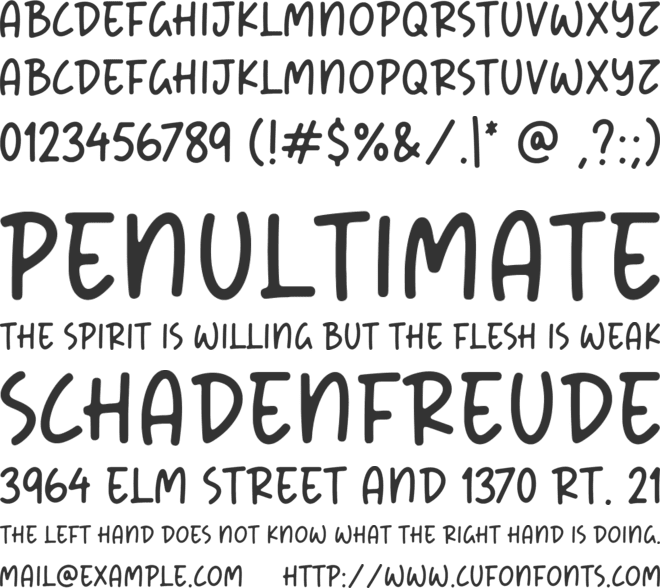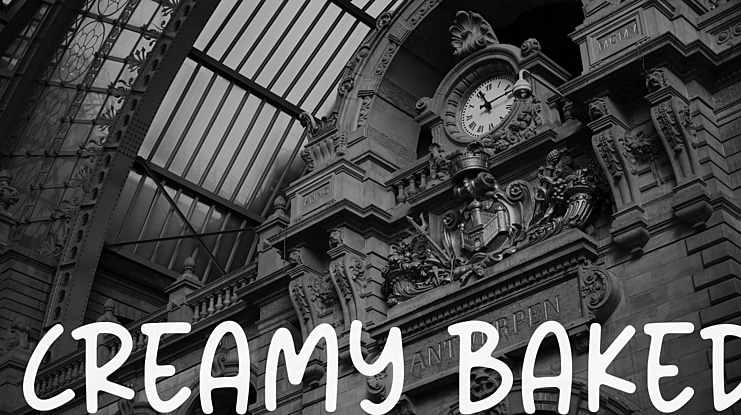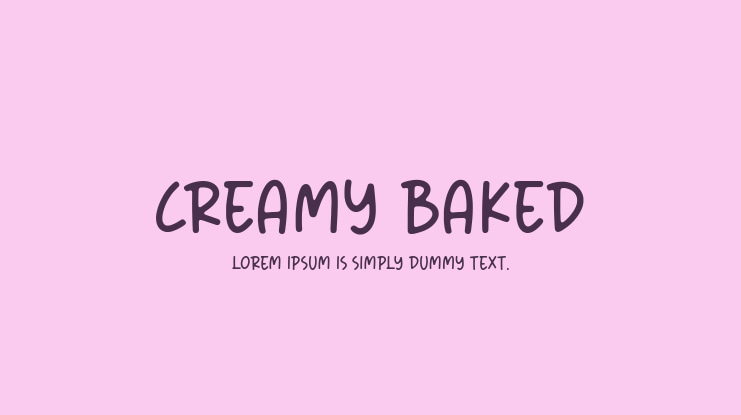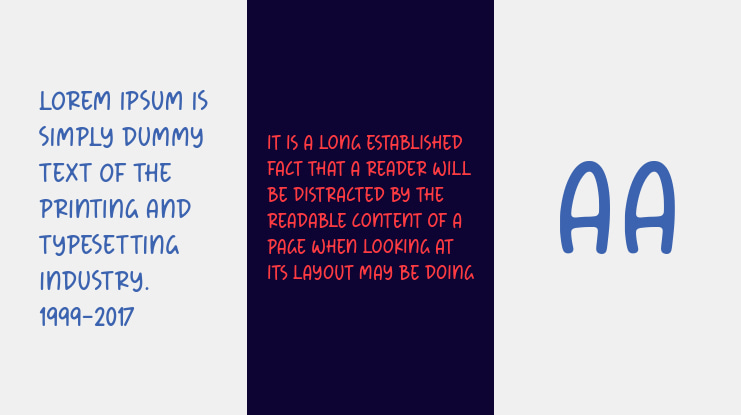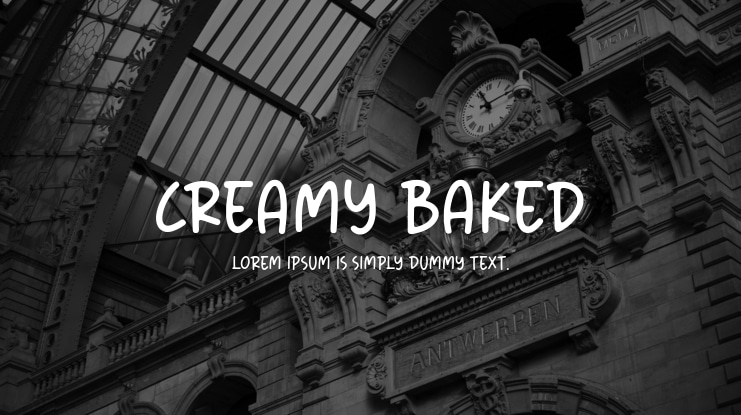
Creamy Baked Font
Introduced by Timur type
Proudly Present creamy baked
creamy baked is a  Handwritten script font that is modern and fresh, and will bring a warm and inviting feel to your business. Take advantage of the fonts and experience the magic for yourself.
creamy baked is perfect for product packaging, branding project, megeenazine, social media, wedding, or just used to express words above the background.
-Full Set of standard alphabet and punctuation
– creamy baked also multilingual support.